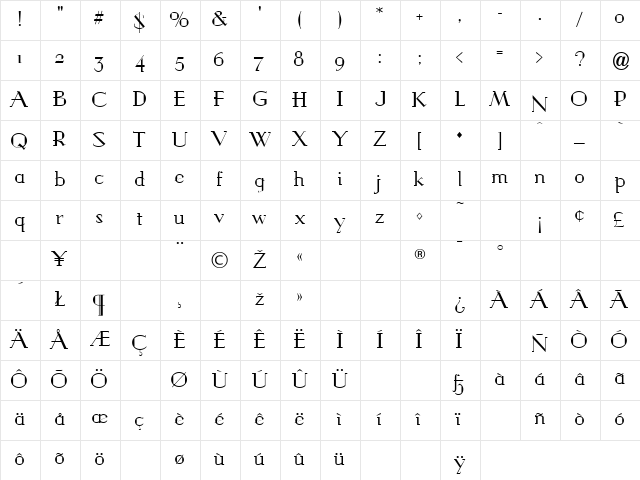
Graybar Book Regular Font Preview
Graybar Book Regular
Design Context for Graybar Book Typeface
Graybar Book takes a measured approach to typography — its balanced proportions and neutral character make it a reliable workhorse for both digital and print work.